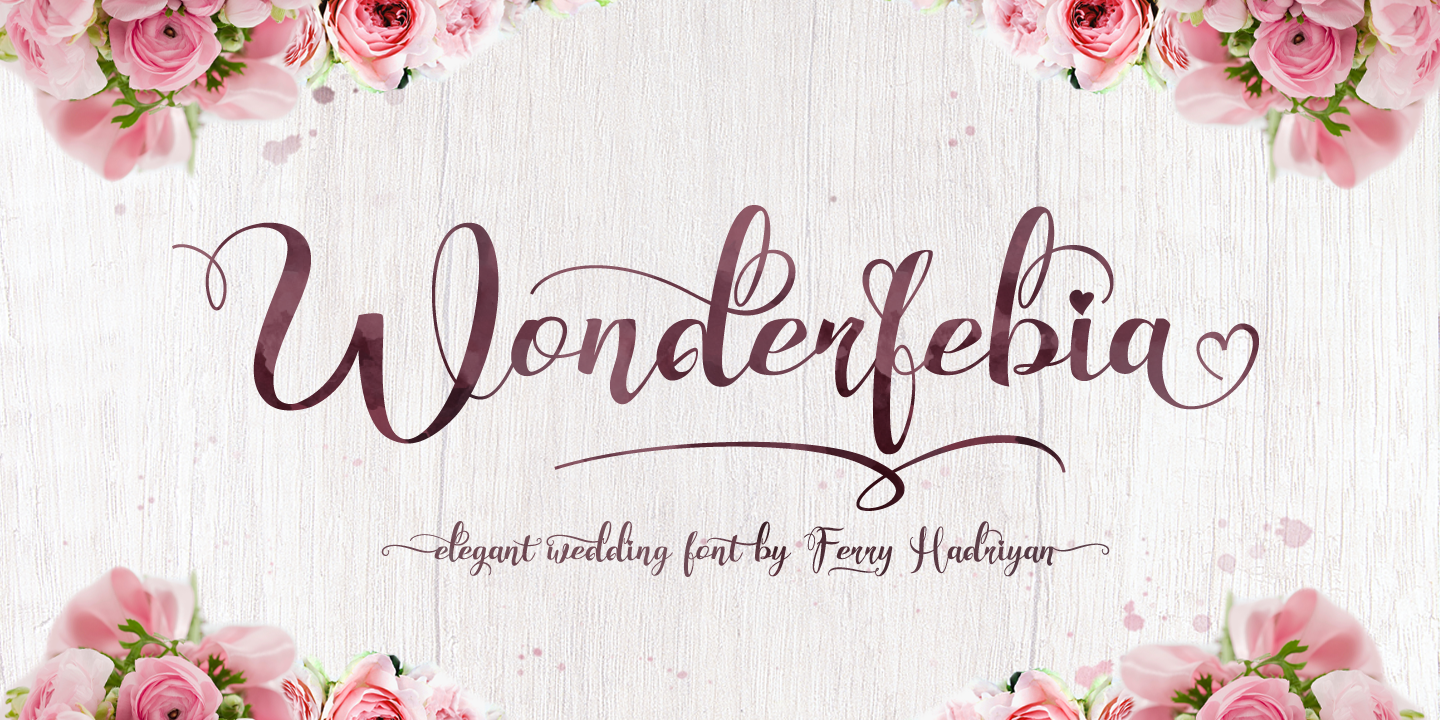
Wonderfebia Font is perfect for fantasy gaming branding, magical storybook covers, whimsical children's entertainment, fairy tale theme parks, mystical wellness centers, enchanting event planning, imaginative toy packaging, and dreamlike creative projects.
Wonderfebia Font is exciting because it captures the enchanting magic and boundless imagination of fantasy worlds through its whimsical character design that embodies the mysterious allure of fairy tales and the captivating wonder of magical storytelling. Its fantastical styling and mystical appeal make it the perfect choice for brands that want to communicate wonder, imagination, and the transformative power of magical experiences.
Wonderfebia Font family includes multiple magical variations: Wonderfebia Regular, Wonderfebia Bold, Wonderfebia Light, Wonderfebia Mystic, Wonderfebia Fairy, and Wonderfebia Dream, along with mystical decorative elements and fantasy symbols, providing designers with comprehensive tools for creating authentic fantasy and magical-themed brand experiences.
When exploring fantasy typography solutions, Wonderfebia Font Free Download stands out as the definitive choice for designers working on magical and fantasy projects that require genuine mystical sophistication and enchanting appeal. This captivating typeface embodies the essence of fantasy wonder while offering the versatility needed for modern entertainment marketing and imaginative brand communications. The font's magical character and fantasy resonance create immediate connections with audiences who appreciate mystical stories and enchanting experiences.
Fantasy entertainment professionals consistently choose Wonderfebia Font for projects requiring authentic magical sophistication and powerful enchanting appeal. Its expertly crafted letterforms feature fantasy-inspired influences that work exceptionally well in both large-scale theme park displays and intimate storybook publication applications. The font's ability to convey wonder and magical authenticity while maintaining strong brand recognition makes it invaluable for comprehensive identity systems in the fantasy entertainment, children's imagination, and mystical experience sectors.
Whether you're developing fantasy gaming identities, creating magical entertainment marketing materials, or designing enchanting event promotions, Wonderfebia Font delivers the authentic fantasy character and mystical appeal that resonates with audiences who embrace magical wonder and imaginative storytelling. Its fantastical significance and dreamlike design ensure your projects capture the captivating magic of fantasy worlds while maintaining contemporary professional standards that attract modern fantasy enthusiasts and magical experience seekers.